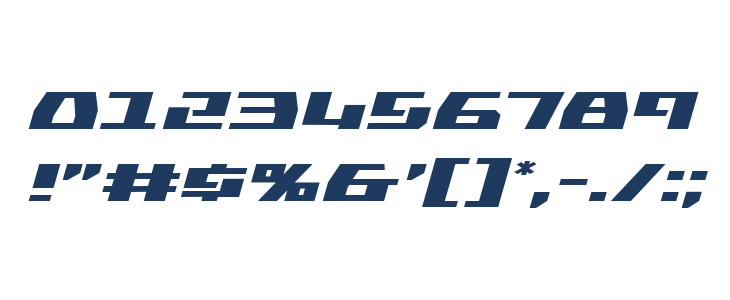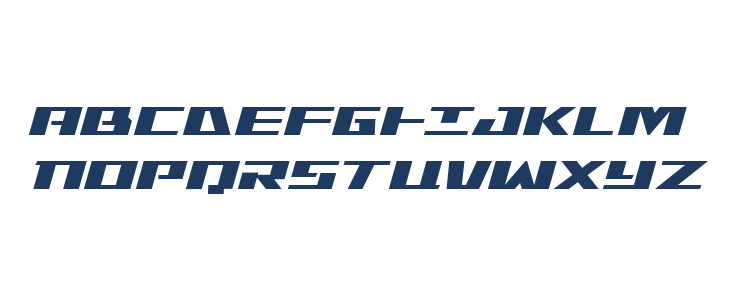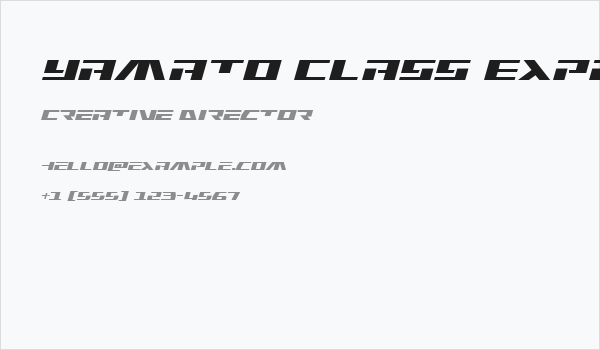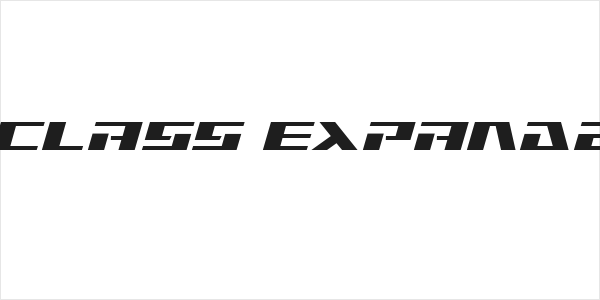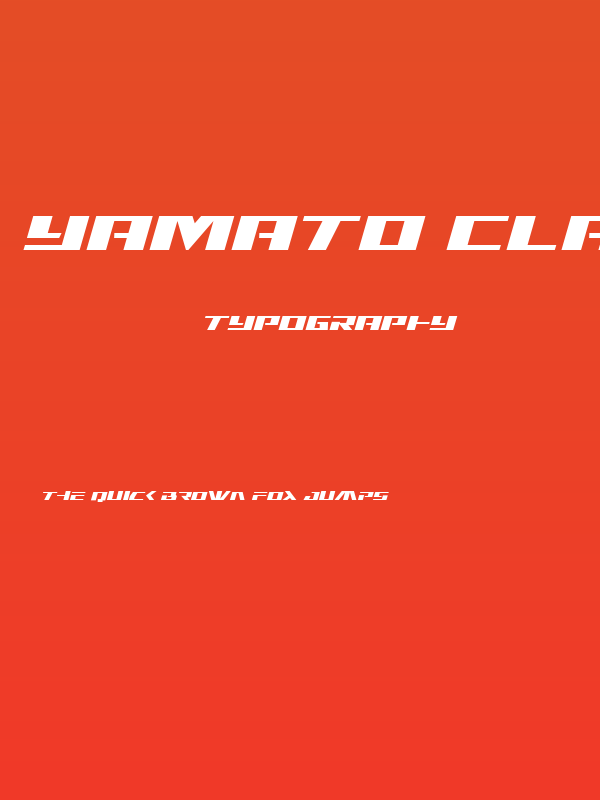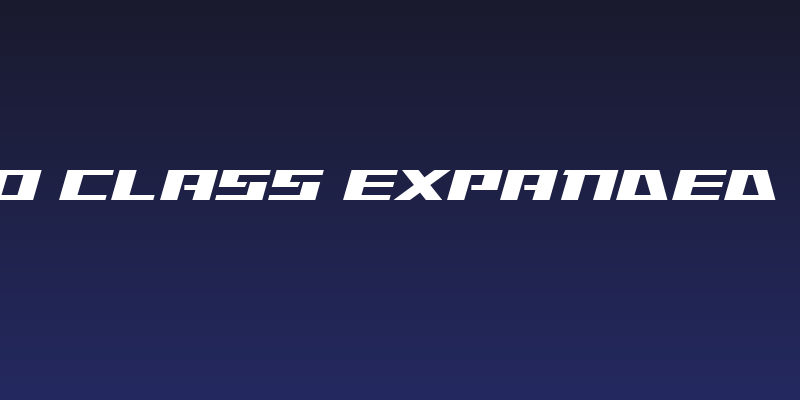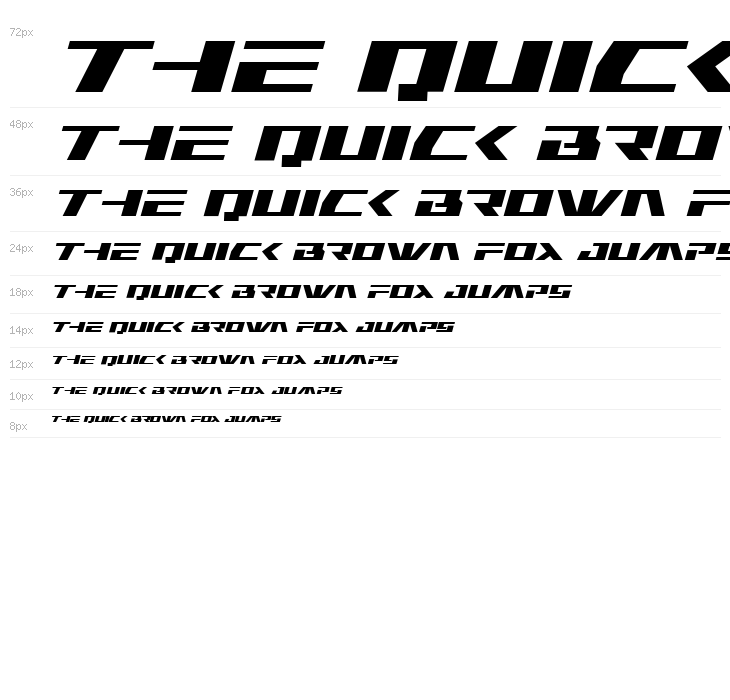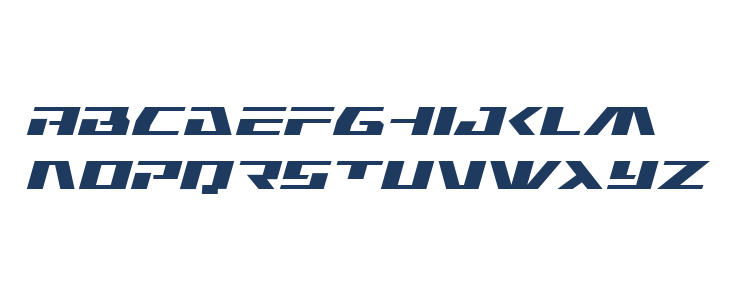
Yamato Class Expanded Italic Font
Yamato Class Expanded Italic Description
A bold, geometric, and angular sans-serif typeface with an italicized, expanded width. The characters feature sharp edges, strong diagonal cuts, and a futuristic, mechanical appearance. The spacing is normal to wide, and the overall design is highly stylized and decorative.
| Overall Style | Futuristic, Decorative |
| Proposed Projects | Video game titles, sci-fi posters, branding for tech products, sports logos, event graphics. |